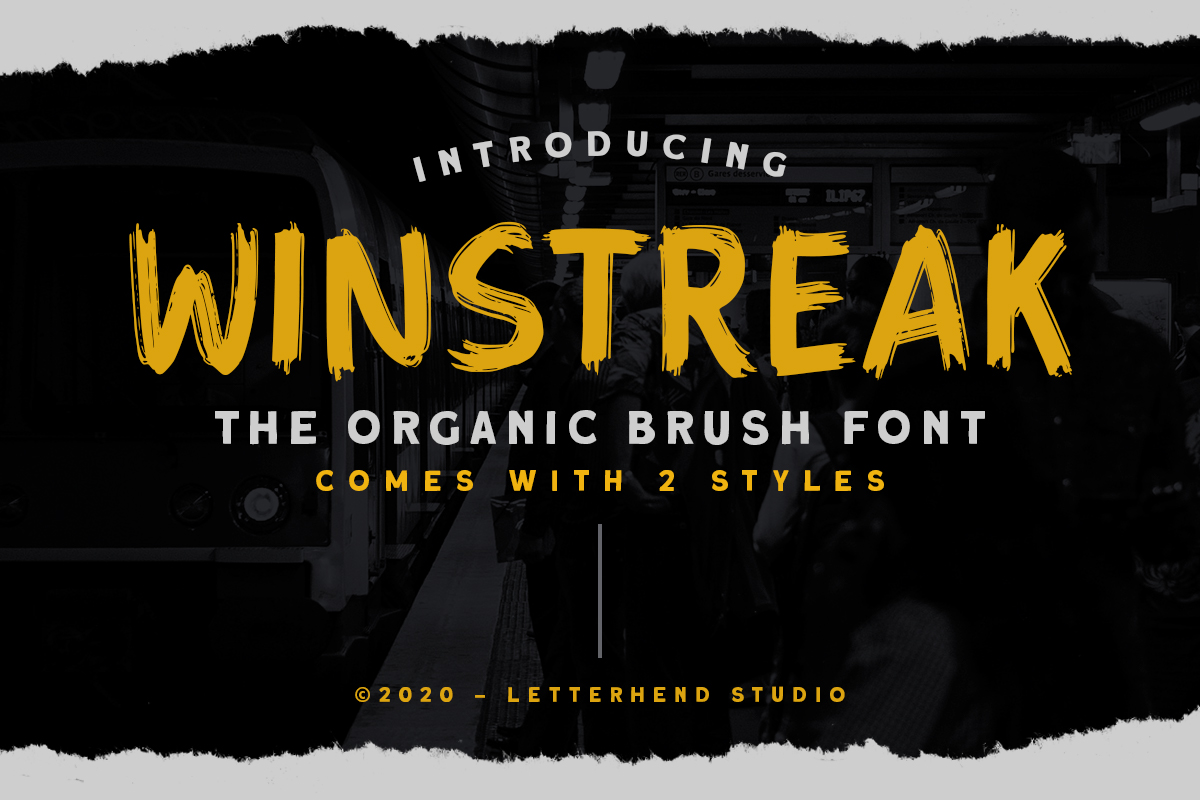
Winstreak Font
Winstreak Font is perfect for competitive sports team branding, victory celebration graphics, championship award materials, winning streak announcements, success-oriented business presentations, achievement-focused marketing campaigns, competitive gaming interfaces, triumph-themed event signage, performance excellence communications, and victorious social media content. This dynamic typeface brings winning energy to athletic organizations, competitive gaming companies, success coaching businesses, achievement recognition systems, and performance-driven educational institutions.
Winstreak Font is exciting because it embodies the unstoppable momentum and exhilarating energy of consecutive victories through its dynamically constructed letterforms that convey speed, success, and triumphant achievement. The font features bold characters with victory-inspired proportions and winning details that evoke the rush of crossing finish lines, the satisfaction of breaking records, and the unstoppable confidence that comes from sustained success. Its distinctive construction demonstrates competitive excellence with carefully crafted elements that create an immediate sense of momentum and victorious energy. The font's winning presence and competitive authenticity make it perfect for brands seeking to communicate sustained success, competitive excellence, and the powerful momentum of winning streaks in their visual communications.
Winstreak Font family includes various victory-focused styles: Light, Regular, Bold, Black, Speed, Victory, Champion, Winning, Condensed, Extended, Competitive, and Triumphant variants. Each family member maintains the core winning DNA while offering different levels of intensity for diverse success-oriented design applications. The comprehensive font collection ensures consistent winning branding across competitive campaigns, achievement products, and victory communication materials.
Whether you're creating competitive brand identities, designing victory marketing materials, developing winning website headers, or crafting success-focused promotional campaigns, Winstreak Font delivers outstanding competitive appeal and victory authenticity. The font's distinctive triumphant personality excels in sports logos, achievement packaging design, competitive applications, and success projects where winning momentum and competitive excellence are essential.